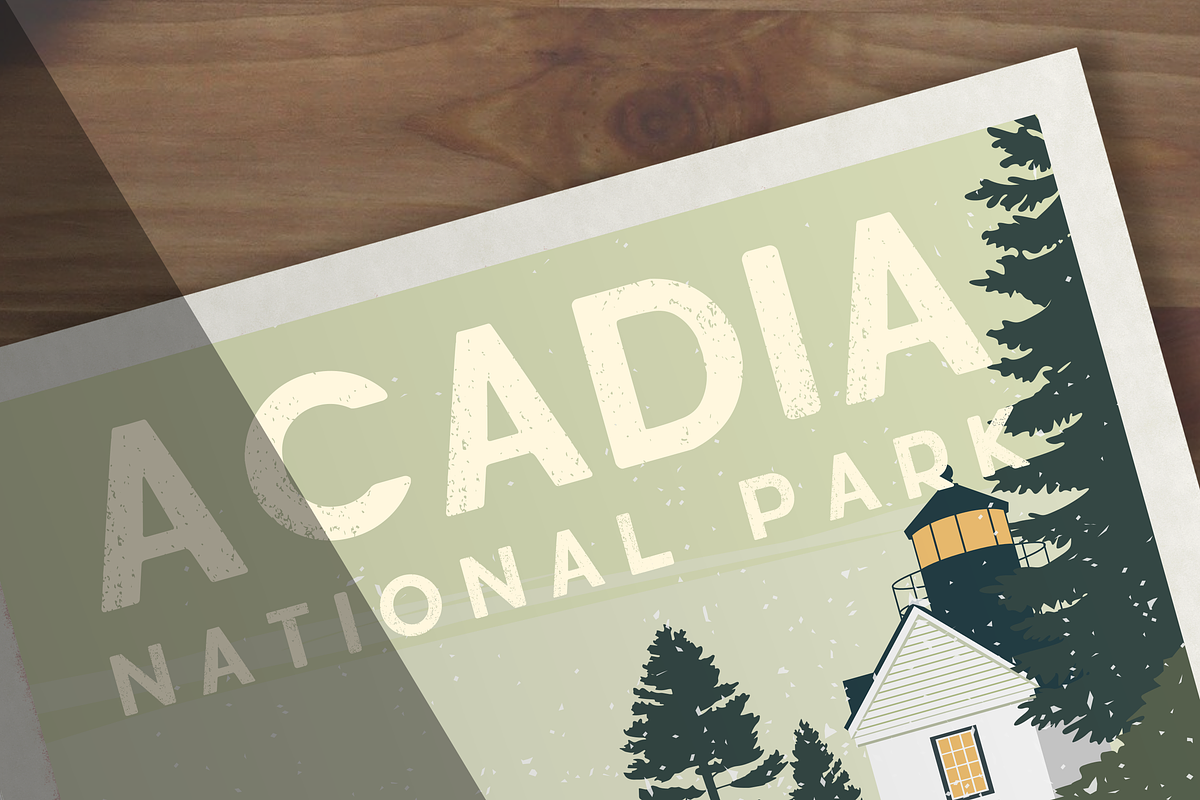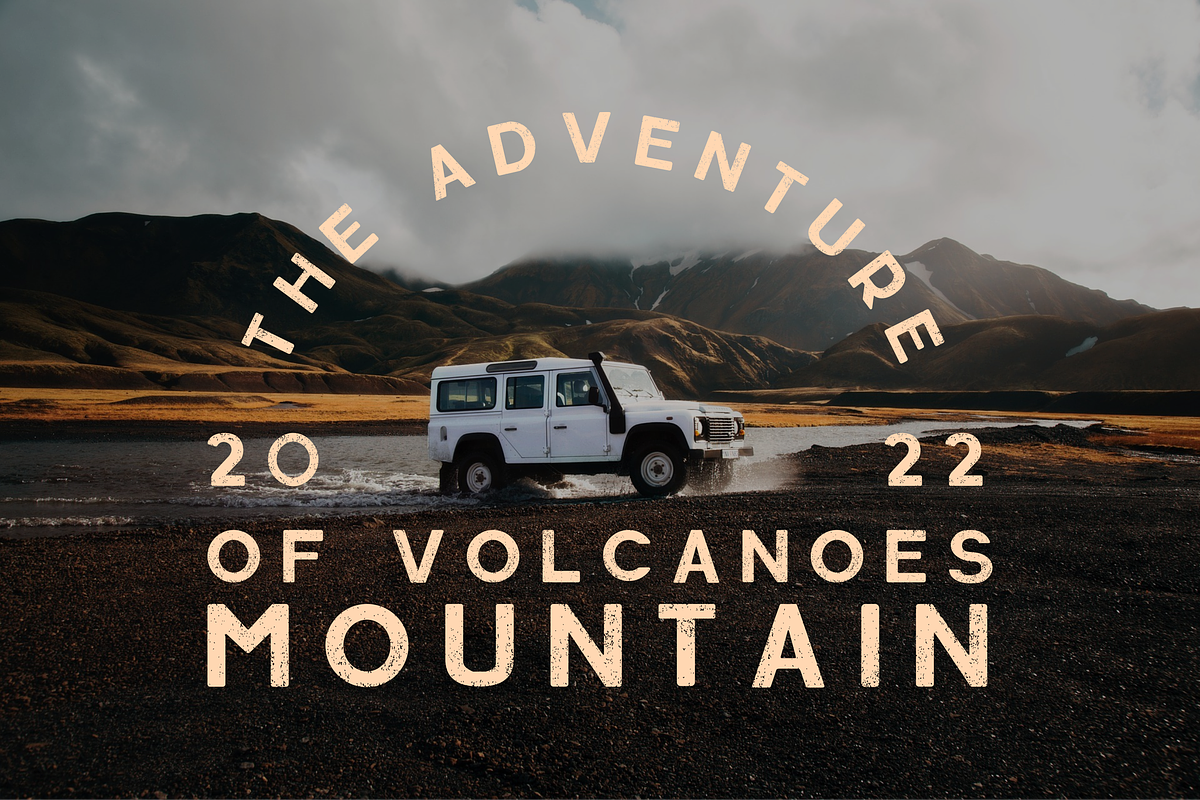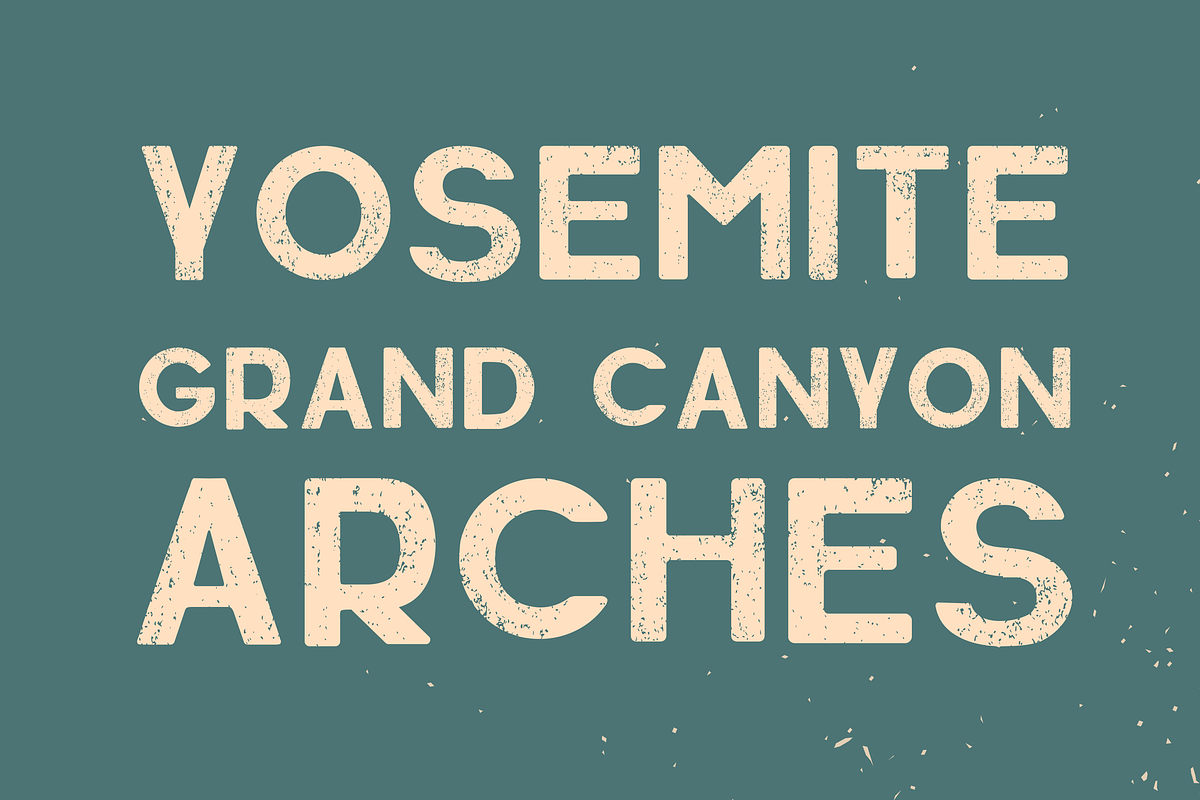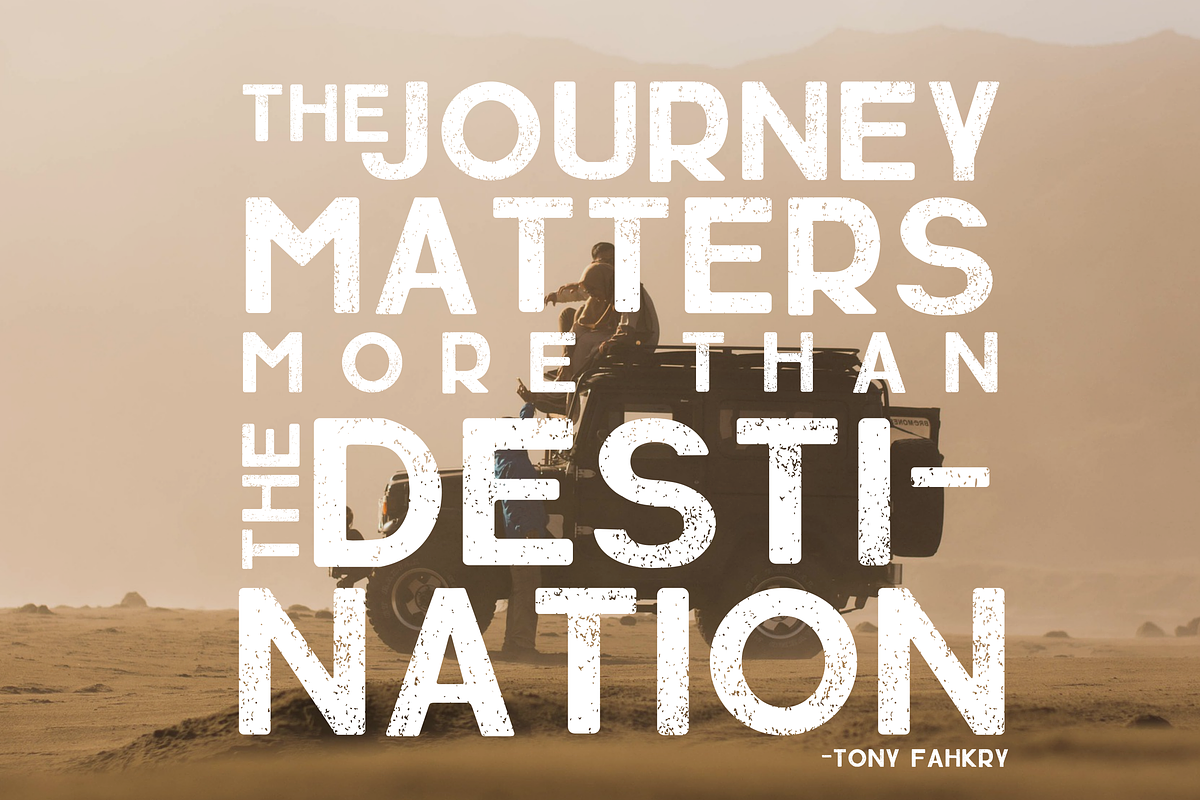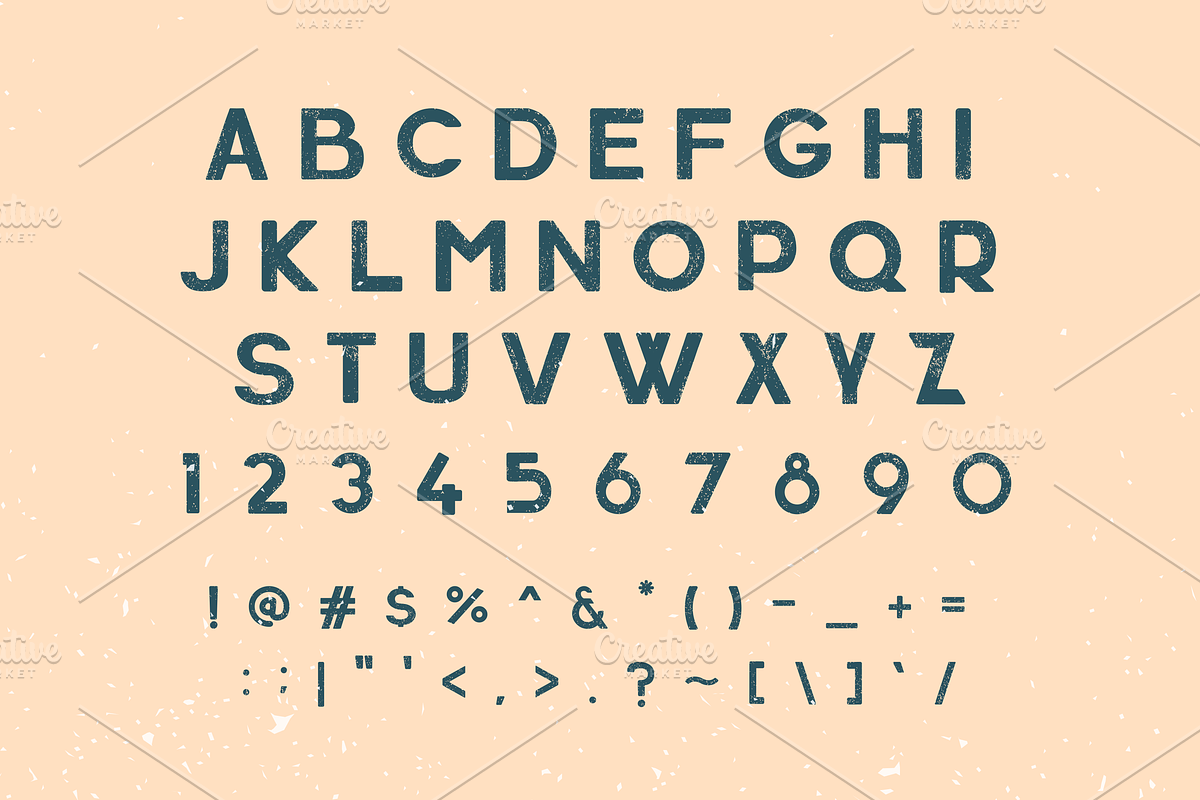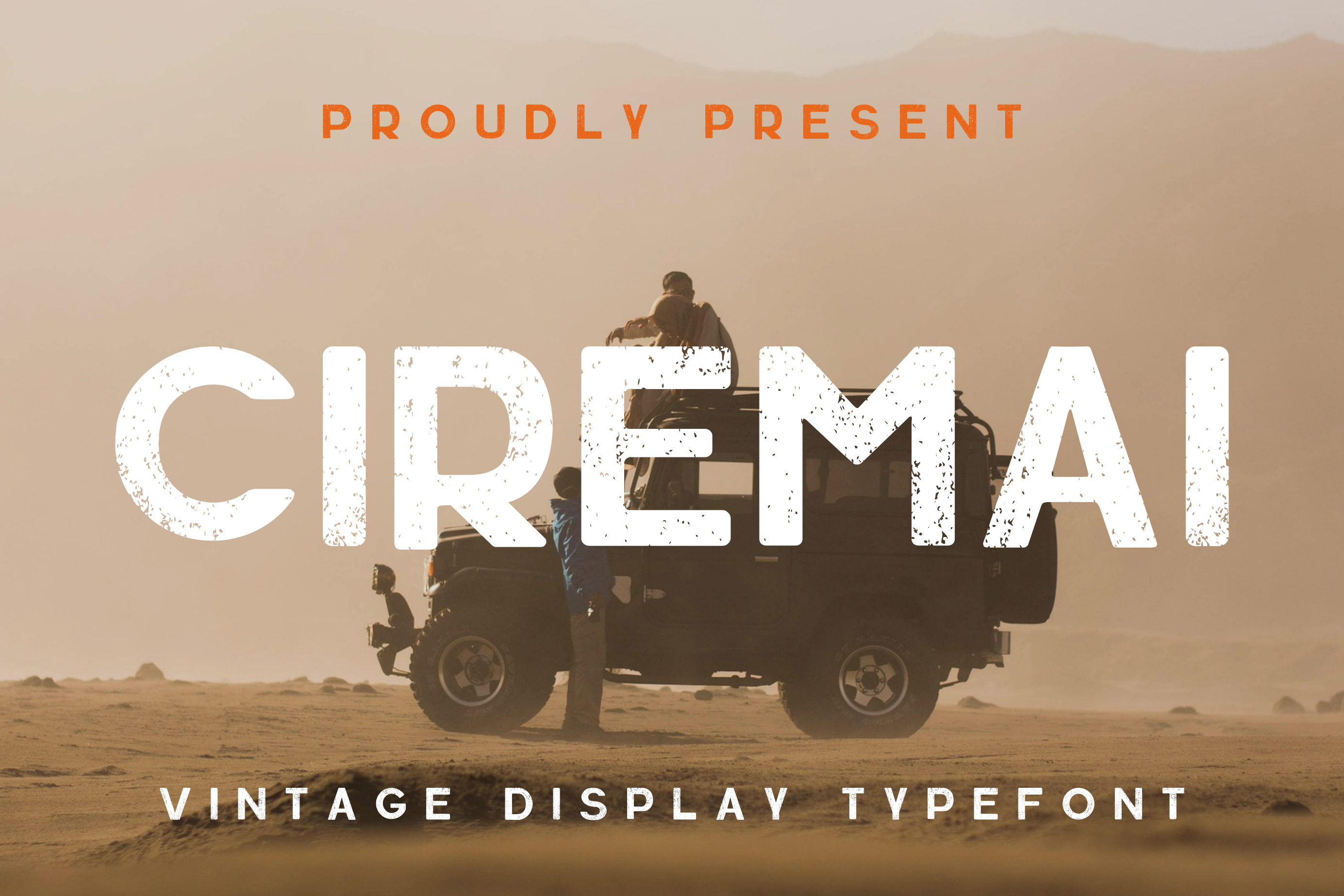
Ciremai - Vintage Display Font
Ciremai font is Vintage style of san serif typeface, it is simple font with some vintage-textured on each character, The Ciremai font perfectly use for logo, poster, headlines, labels, apperal, photography, and more